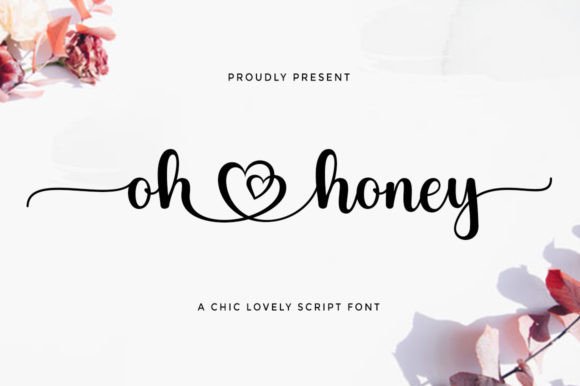
Introducing Oh Honey Font, the epitome of elegance and femininity in the world of script fonts. Created by the renowned LetterFreshStudio, this font is a must-have for anyone seeking to add a touch of romance and sophistication to their projects.
Oh Honey Font boasts graceful curves and delicate strokes, meticulously crafted to perfection. Each letterform exudes charm and radiates an aura of timeless beauty. Whether you're designing wedding invitations, creating a brand identity, or working on editorial projects, this font is the perfect choice to elevate your creations.
Immerse yourself in the enchanting world of Oh Honey Font, and let its captivating beauty mesmerize you and your audience. With its chic and lovely aesthetic, it effortlessly captures attention and evokes a sense of elegance that is hard to resist.
But what sets Oh Honey Font apart from the rest? It's not just about its stunning visual appeal; this font is also incredibly versatile. It is PUA encoded, meaning you can effortlessly access a wide array of delightful glyphs and swashes. Let your creativity soar as you explore the endless possibilities that this font has to offer.
Imagine the impact of Oh Honey Font on your wedding invitations. Its romantic aura will transport your guests to a world of love and bliss, setting the perfect tone for your special day. For branding purposes, this font will infuse your designs with sophistication, leaving a lasting impression on your target audience.
Editorial designers will find Oh Honey Font to be their secret weapon, effortlessly transforming any project into a work of art. Its graceful charm will breathe life into your layouts, making your content visually captivating and emotionally compelling.
In conclusion, Oh Honey Font is not just any script font; it is the best font for love. Its exquisite beauty, versatility, and timeless charm make it a must-have for anyone seeking to create visually stunning and emotionally engaging designs. So don't miss out on this opportunity to add a touch of elegance to your projects. Download Oh Honey Font today and let your creativity flourish!